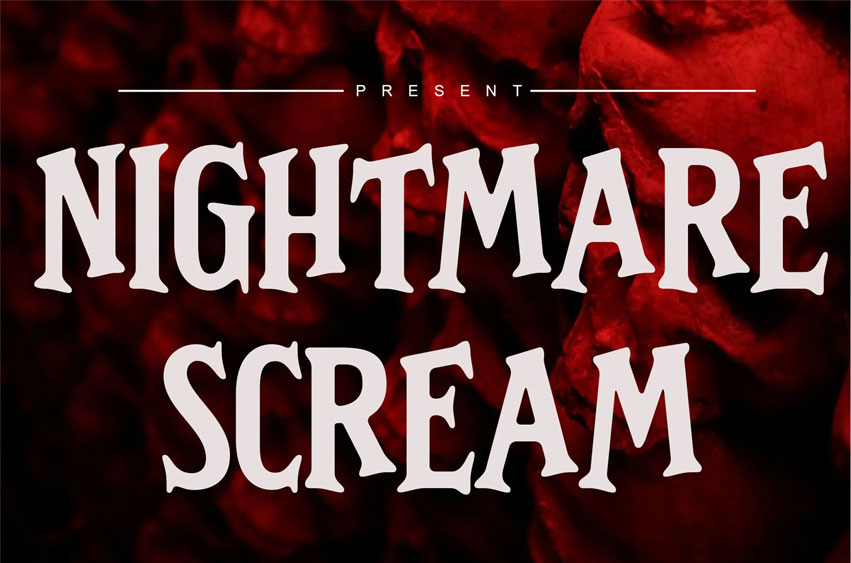
Nightmare Scream Font
Nightmare Scream Font is a horror, scary, and Halloween font, perfect for your Halloween party poster or some scary design! Also suitable for movies, documentaries, films, logos, posters, games, book covers, headlines, titles, and many more projects.